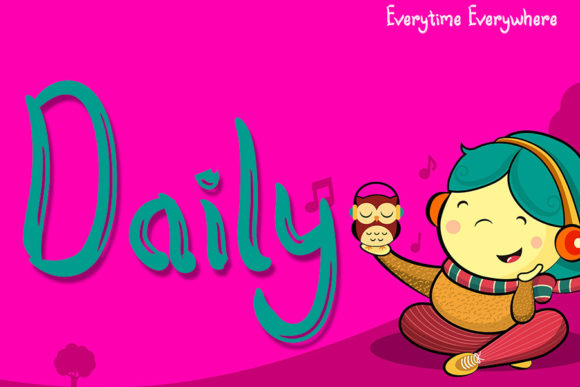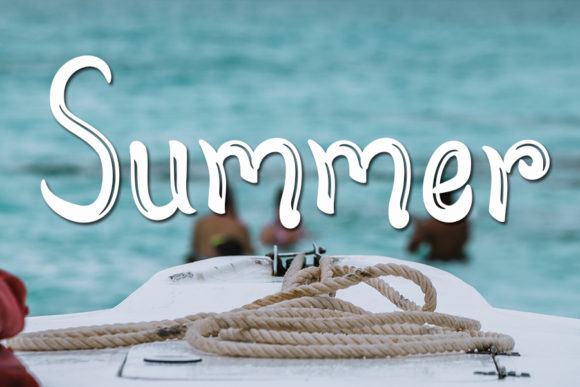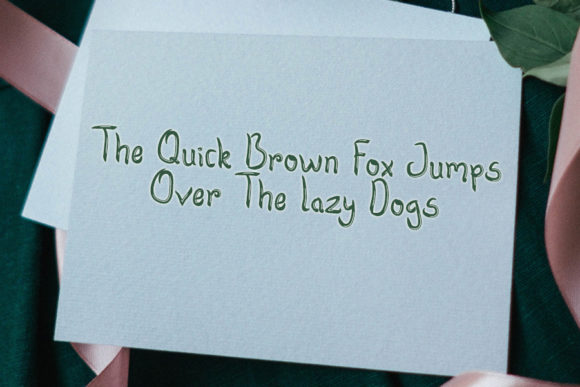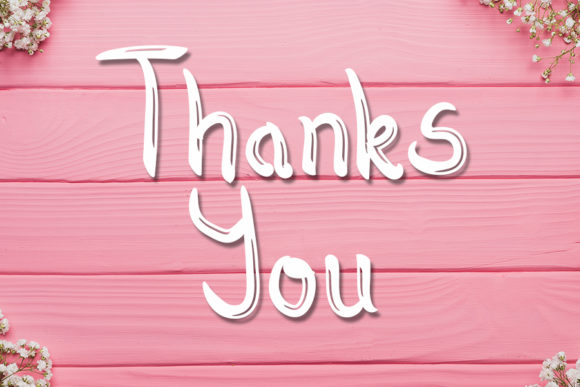
Introducing Adventura Font: Add a Joyful Touch to Your Designs
Are you tired of using the same old fonts in your designs? Do you want to add a playful and joyful touch to your creative projects? Look no further than Adventura Font, a cute display font that is sure to make your designs stand out. In this article, we’ll take a closer look at Adventura Font, its features, and how you can use it to elevate your designs.
What is Adventura Font?
Adventura Font is a display font designed to add a fun and playful touch to your designs. Its cute and quirky style makes it perfect for use in a variety of creative projects, from posters and flyers to social media graphics and craft projects. With its unique and eye-catching design, Adventura Font is sure to grab attention and leave a lasting impression.
Features of Adventura Font
So, what makes Adventura Font so special? Here are just a few of its key features:
- Cute and playful design: Adventura Font has a unique and adorable design that is sure to bring a smile to your face.
- Display font: Adventura Font is designed specifically for use as a display font, making it perfect for headlines, titles, and other attention-grabbing elements.
- Easy to read: Despite its playful design, Adventura Font is easy to read, even at smaller sizes.
- Versatile: Adventura Font can be used in a wide range of creative projects, from digital designs to print materials.
How to Use Adventura Font in Your Designs
Now that we’ve covered the basics of Adventura Font, let’s talk about how you can use it in your designs. Here are a few ideas to get you started:
- Posters and flyers: Use Adventura Font as a headline or title font to grab attention and draw people in.
- Social media graphics: Add a playful touch to your social media graphics with Adventura Font.
- Craft projects: Use Adventura Font to add a personal touch to your craft projects, such as handmade cards or scrapbooking pages.
- Digital designs: Use Adventura Font in your digital designs, such as website headers or email newsletters.
Tips for Getting the Most Out of Adventura Font
Here are a few tips for getting the most out of Adventura Font:
- Use it sparingly: Adventura Font is a display font, so it’s best to use it sparingly to avoid overwhelming your design.
- Pair it with other fonts: Experiment with pairing Adventura Font with other fonts to create a unique and interesting design.
- Experiment with colors: Don’t be afraid to experiment with different colors and textures to add depth and interest to your design.
In conclusion, Adventura Font is a fun and playful display font that is sure to add a joyful touch to your designs. With its cute and quirky style, it’s perfect for use in a wide range of creative projects. Whether you’re a designer, crafter, or simply someone who loves to create, Adventura Font is a great addition to your font collection.